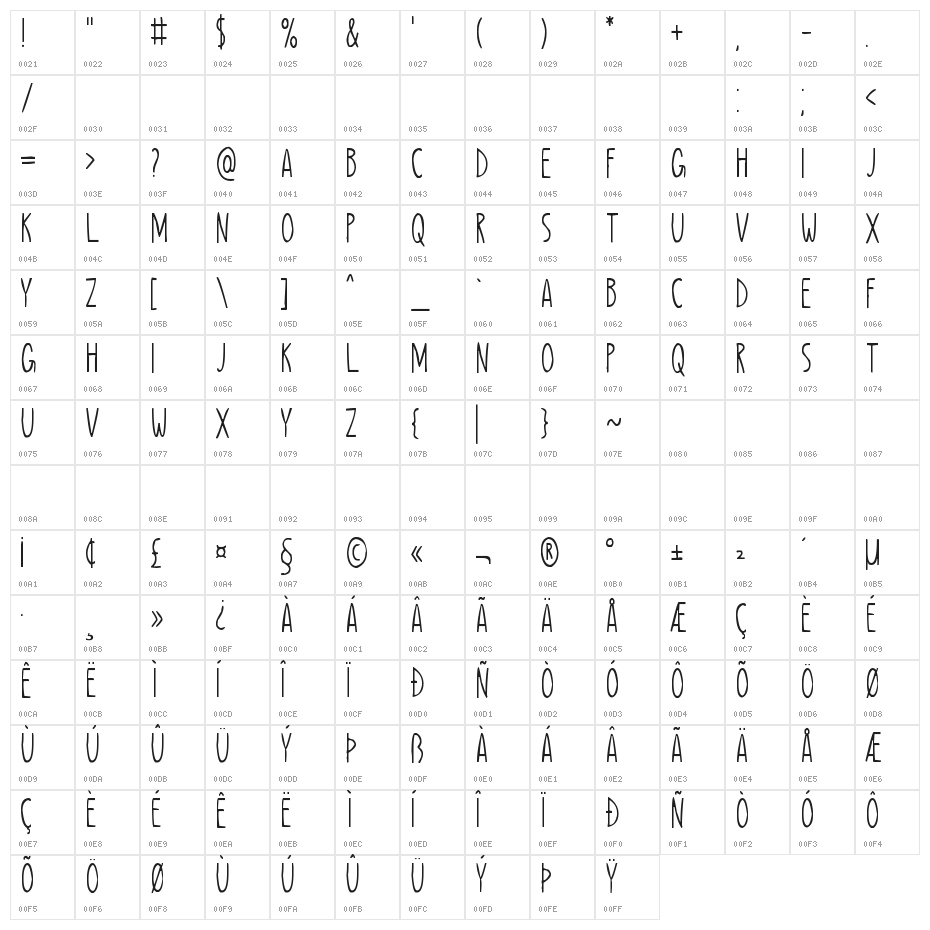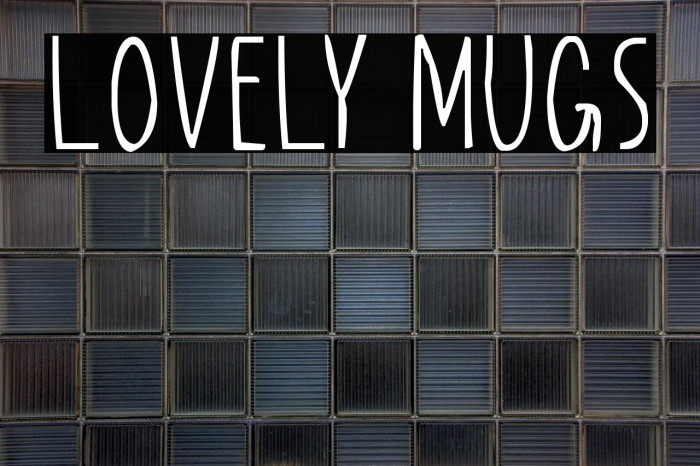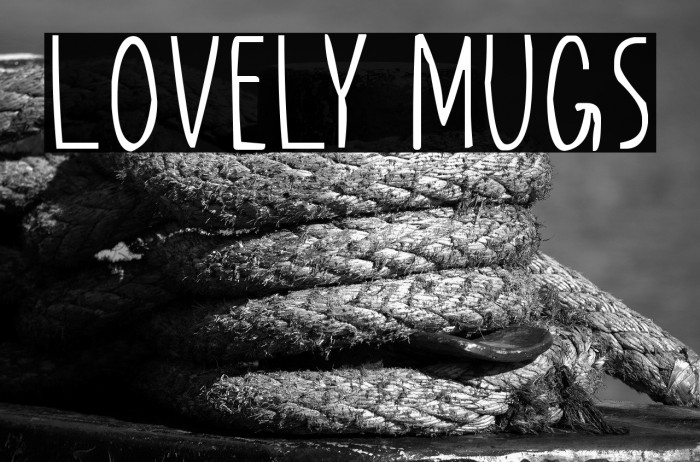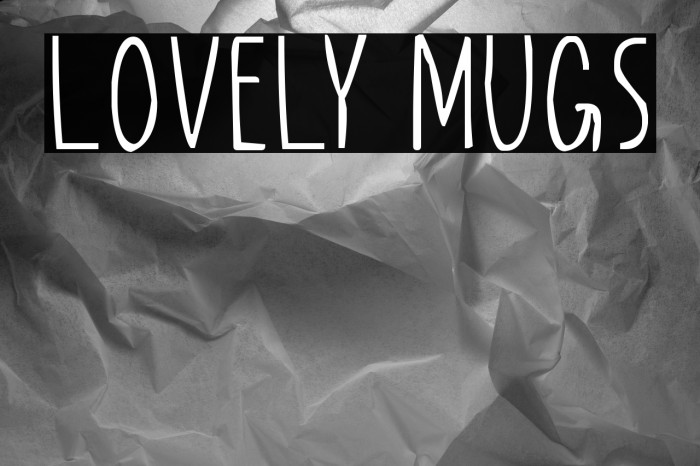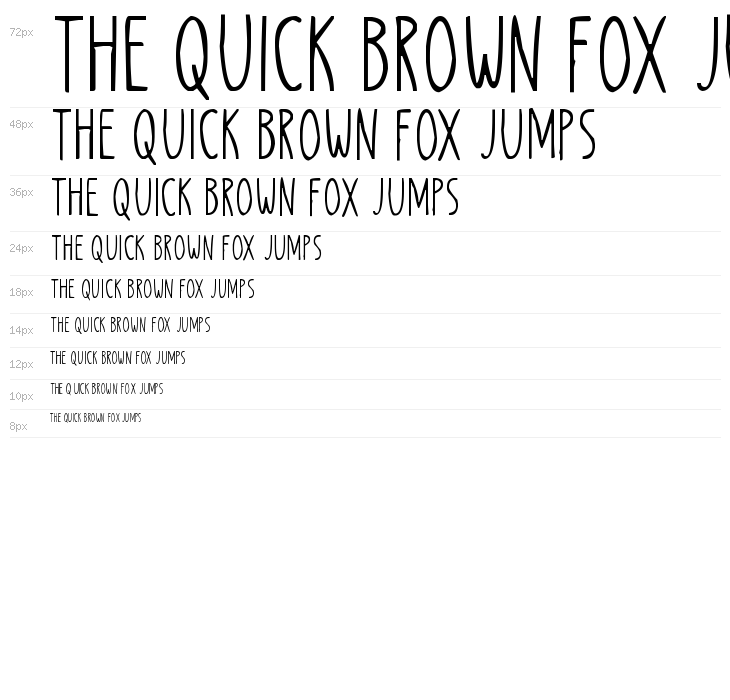
Lovely Mugs Font
Lovely Mugs Description
This font features a playful and informal handwritten style, characterized by its tall, narrow letters with a slightly uneven baseline. The strokes are consistent in width, giving it a clean and modern appearance. The uppercase and lowercase letters maintain a cohesive look, while the numerals and special characters complement the overall design. The font's casual and friendly vibe makes it suitable for projects that require a personal touch.
| Use Case | Logos, Headlines, Informal Text |
| Proposed Projects | Ideal for greeting cards, children's books, casual branding, and social media graphics. |